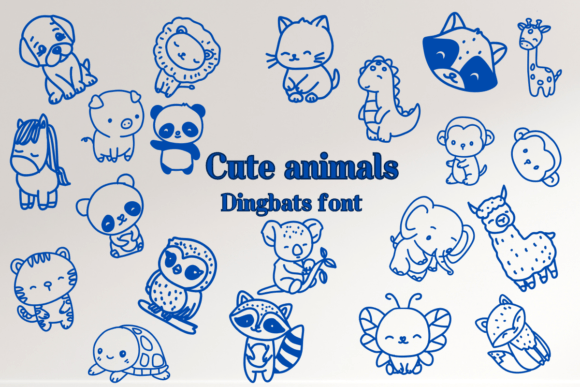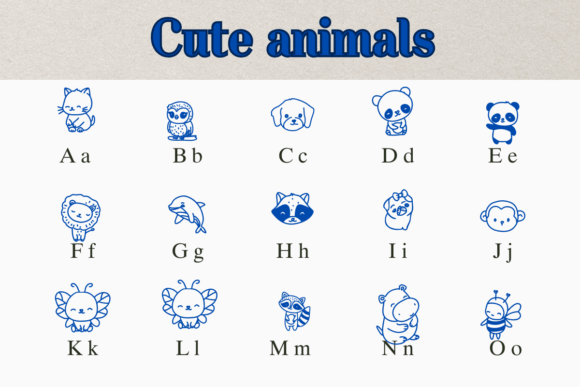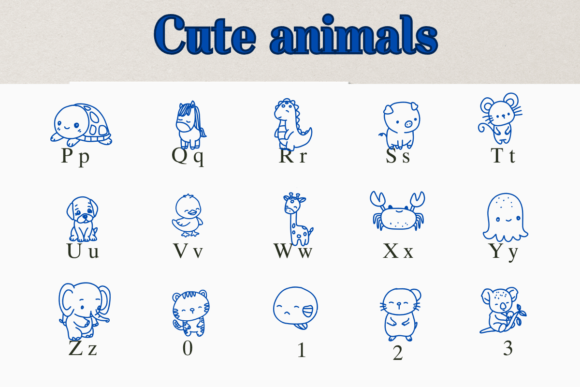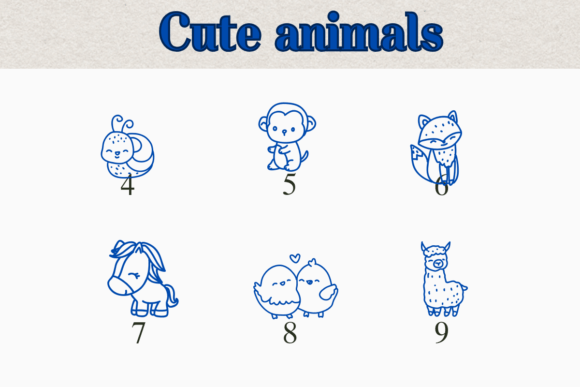
Cute Animals Font
About the Cute Animals Font
The Cute Animals Font offers a perfect balance of form and function for your design needs. Cute Animals is a lovely dingbats font with a cute theme. This font can enhance your creative projects such as wedding invitations, DIY, crafts, decorations, logos, and many other creative ideas.
Cute Animals excels in projects requiring a playful and approachable aesthetic. It’s ideal for children’s books, branding for pet-related businesses, whimsical invitations, or packaging for sweet treats. However, its highly decorative nature makes it unsuitable for body text or UI elements where legibility is paramount. Avoid using it in lengthy passages or situations demanding clear communication of dense information.
To balance its charming informality, pair Cute Animals with a clean sans-serif like Helvetica Neue for a modern feel, or a classic serif such as Garamond for a more traditional touch. For a bolder contrast, consider pairing it with a geometric sans-serif like Futura. These pairings provide visual contrast while maintaining a cohesive design.
The font’s overall personality is undeniably friendly and lighthearted, making it perfect for brands focused on warmth and approachability. Its charming, slightly naive style lends itself to projects aiming for a nostalgic or youthful feel.
Cute Animals Font Usage Examples
Cute Animals Font Example